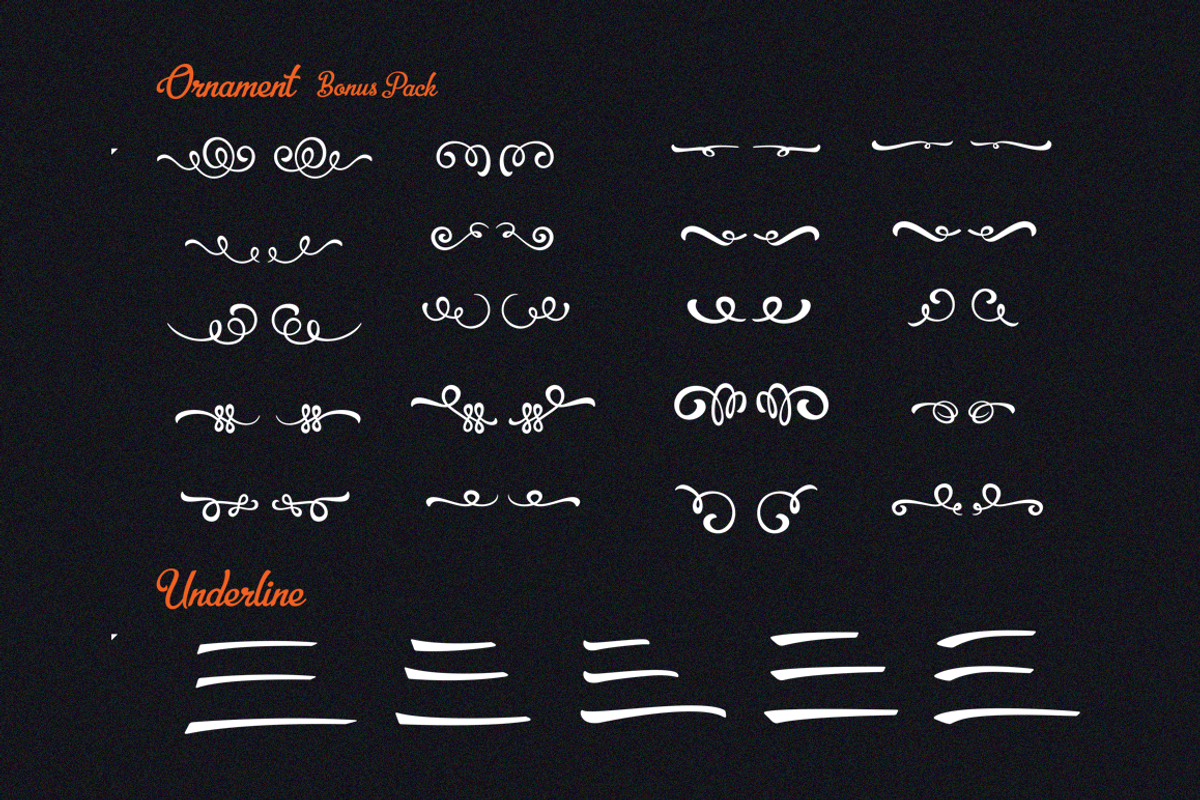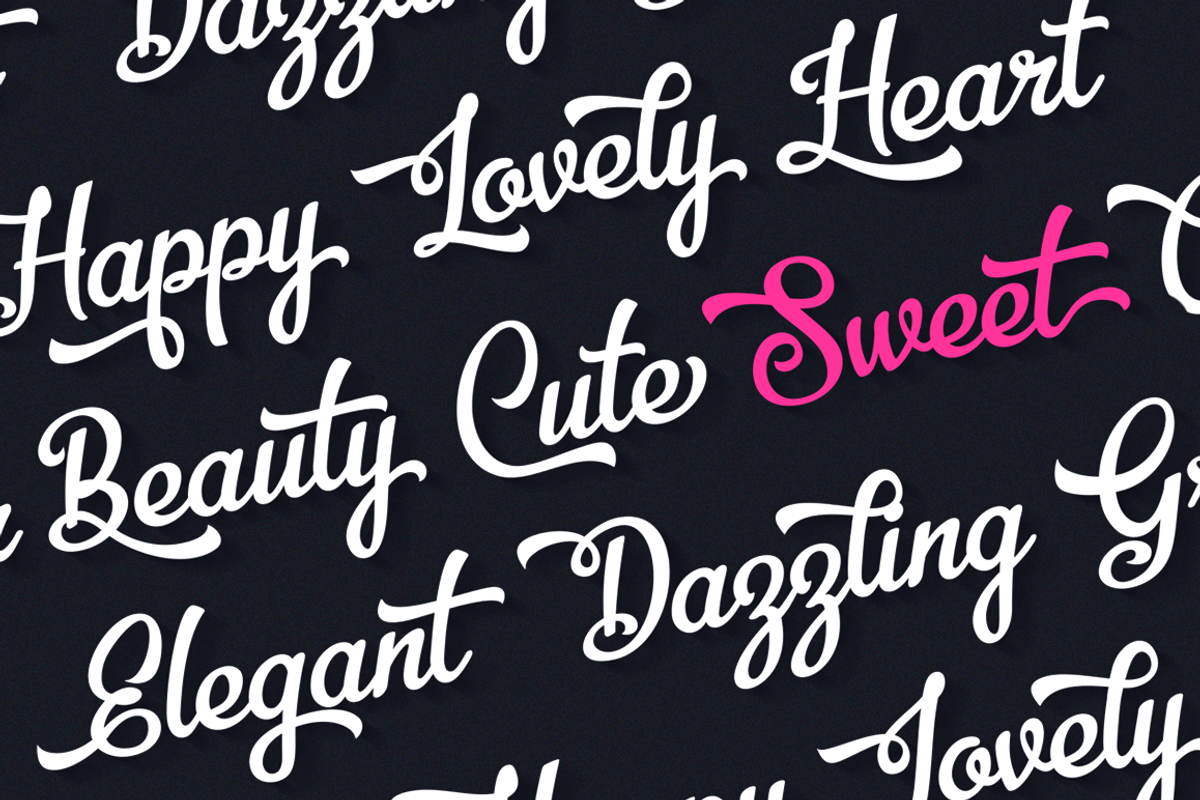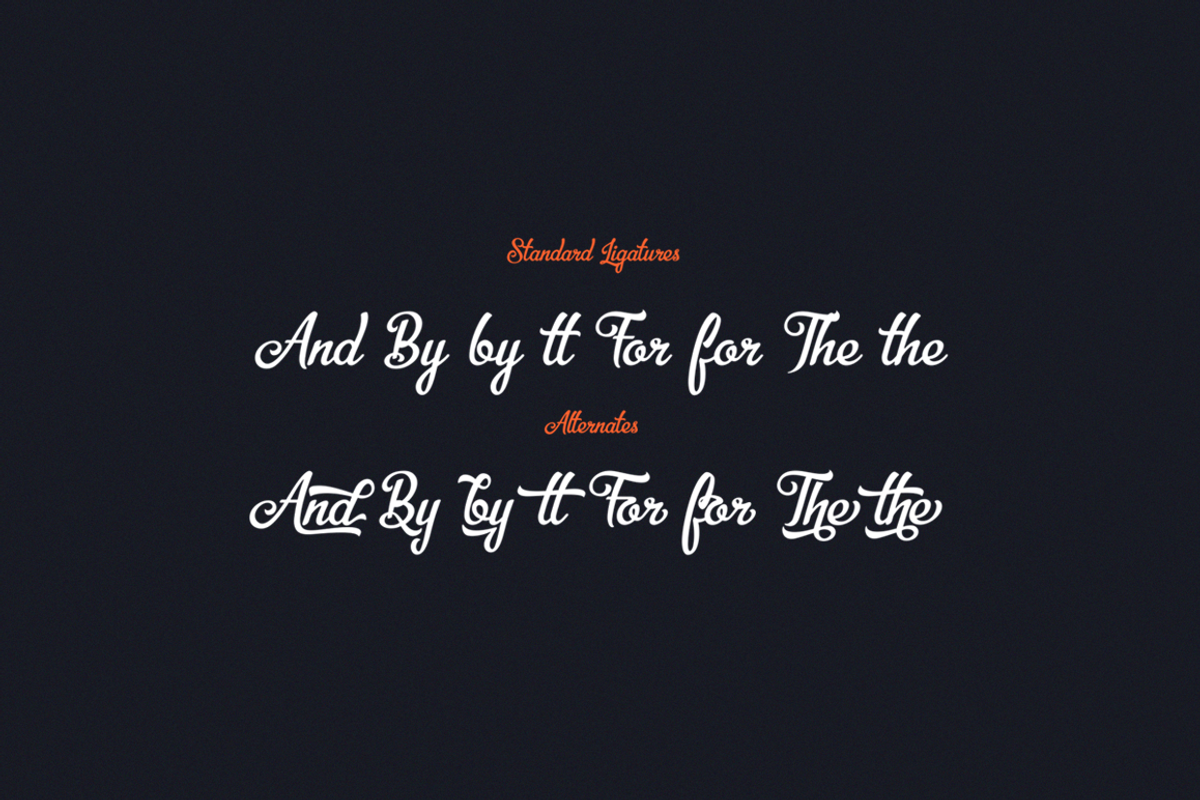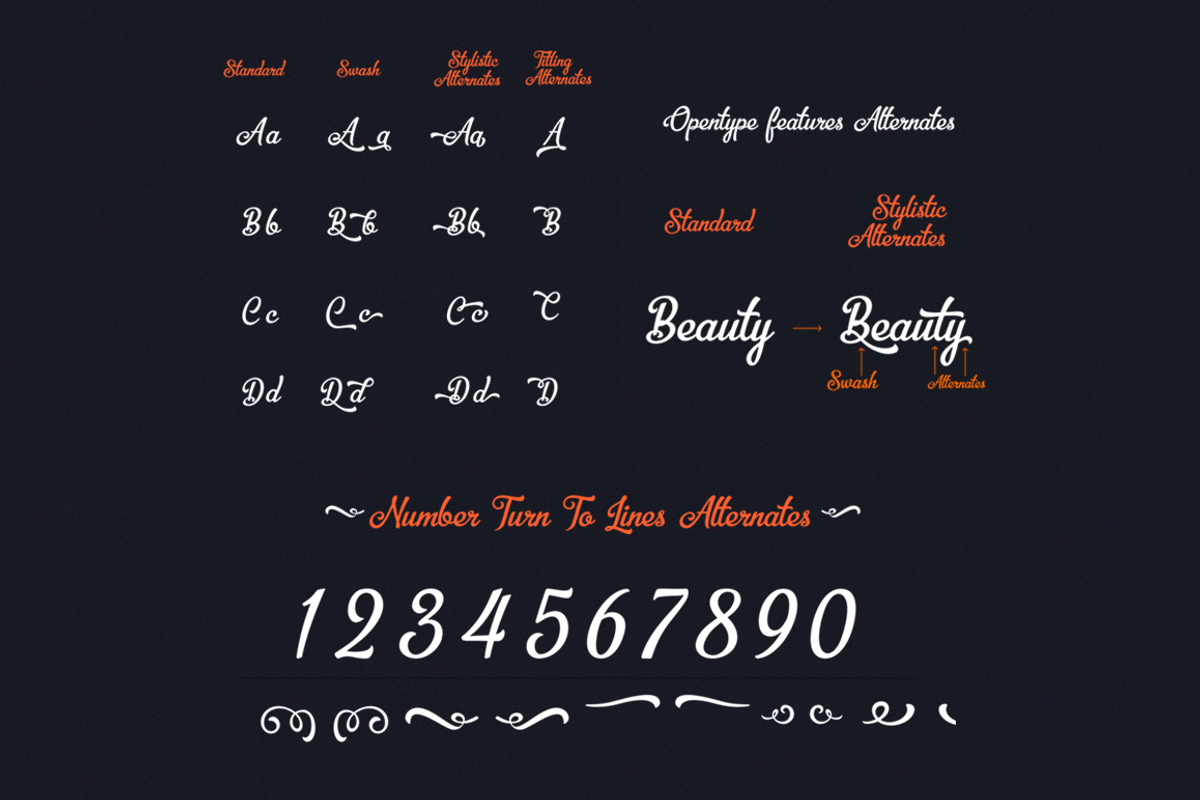
Bellico Typeface +Bonus Pack
Bellico Typeface +Bonus Pack by seventhimperium is a font selected for branding, posters, packaging, typography.
- Bellico is a beauty script typeface with a large range of alternates that fits any kind of various purpose with a bunch of alternative chara
Why Bellico Typeface +Bonus Pack is worth a look
Bellico Typeface +Bonus Pack by seventhimperium fits naturally into Branding, posters, packaging, typography.